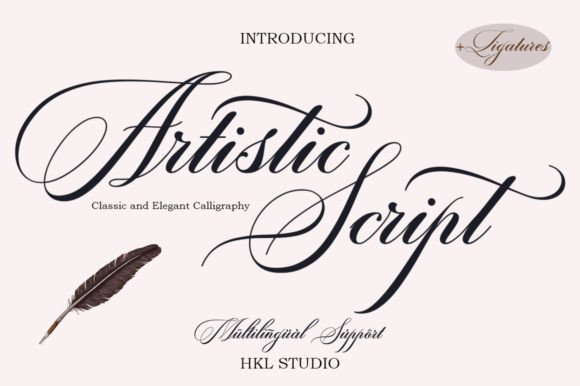
Transform your design into a masterpiece with Artistic Script Font - the ultimate calligraphy script font for game design enthusiasts. Designed by HKL Studio, this font is the perfect blend of classic decorative copper script and modern elegance, guaranteed to bring out the stylish elegance in your work.
With its exquisite change characters, Artistic Script Font is the perfect choice for those looking to elevate their game design. This versatile font family comes with a plethora of glyphs and swashes, making it the perfect choice for invitations, labels, restaurant menus, logos, fashion, stationery, novels, magazines, or any kind of advertising purposes.
What sets Artistic Script Font apart is its exceptional detail, which ensures that every character is crafted to perfection. This PUA encoded font allows for effortless access to all glyphs and swashes, making it a must-have for any serious designer.